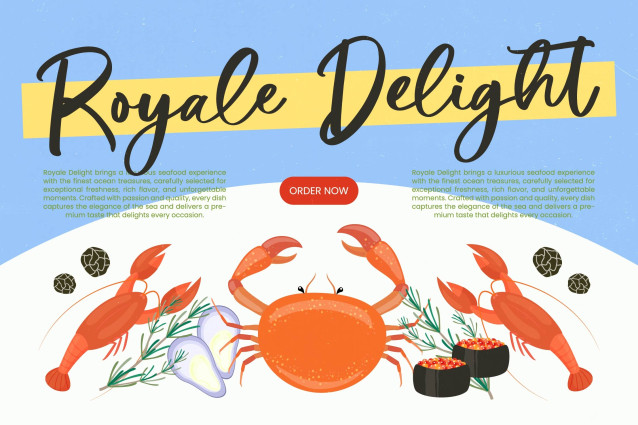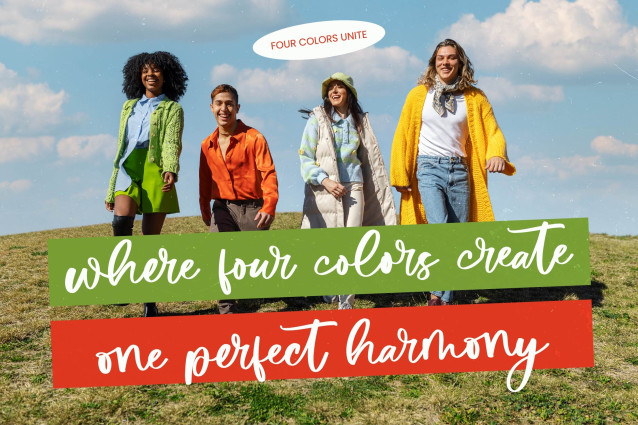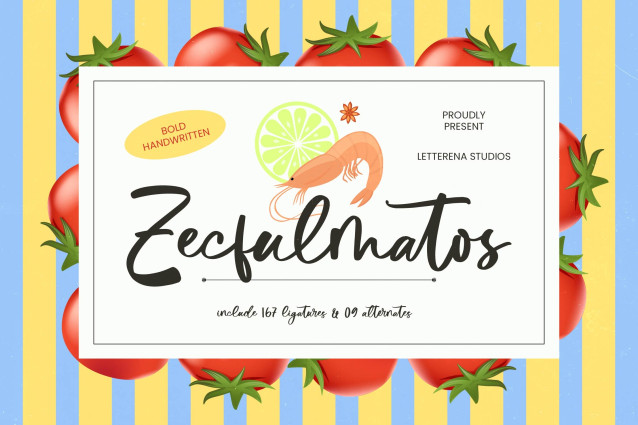
Discover the perfect blend of organic warmth and striking visual impact with Zecfulmatos – Bold Handwritten. This typeface captures a bold handwritten aesthetic that feels both personal and professional, making it an essential tool for designers seeking an authentic artisan touch. Its heavy weight ensures maximum legibility while maintaining a fluid, rhythmic flow that commands attention in any digital or print layout.
Elevate your creative compositions using the premium typographic features embedded within this versatile script. Featuring 167 unique ligatures and multiple alternates, Zecfulmatos – Bold Handwritten provides a bespoke, custom-lettered look that eliminates repetitive character patterns. These dynamic flourishes allow for seamless transitions between letters, creating a harmonious and natural appearance that mirrors high-end calligraphy.